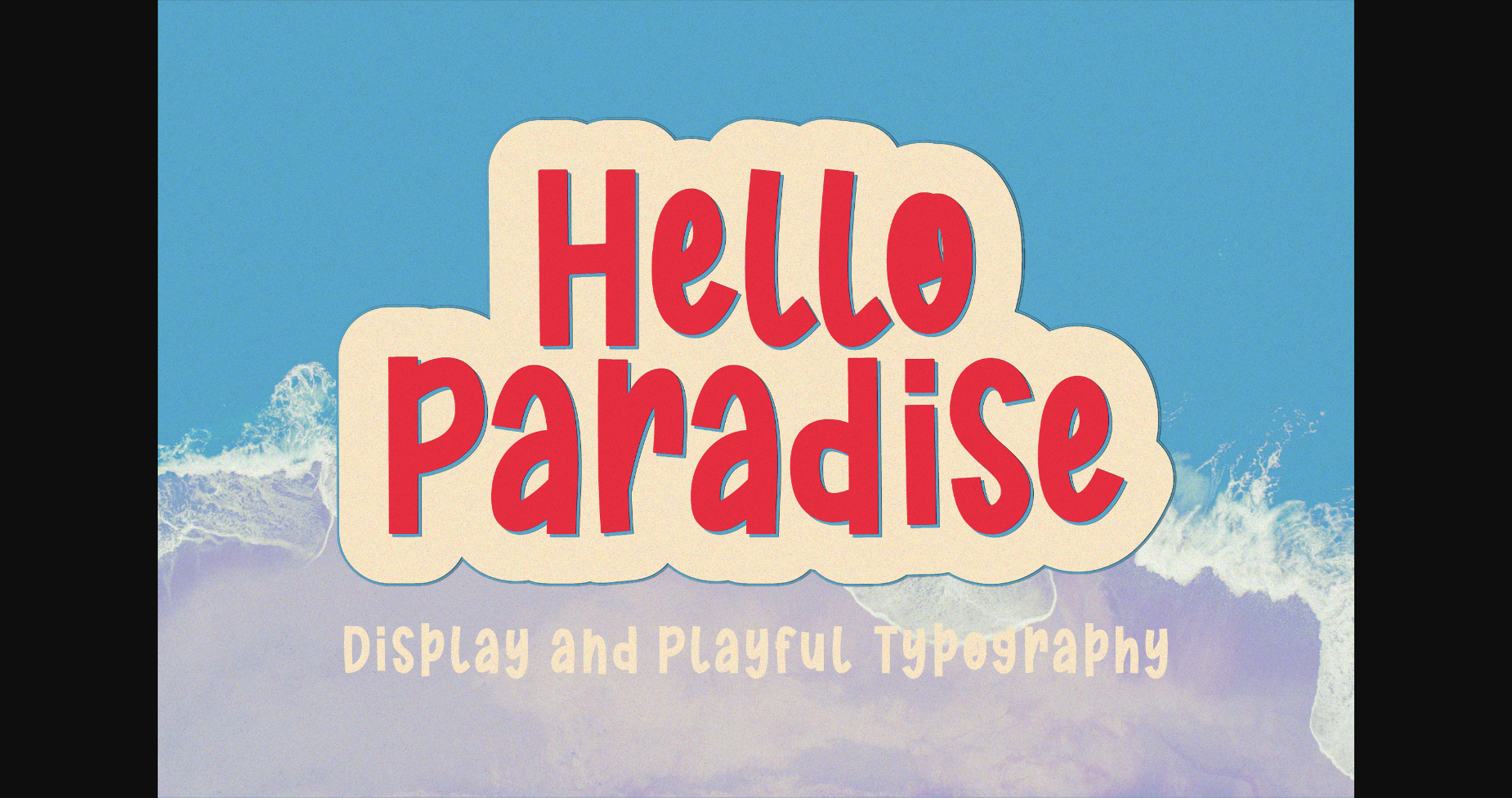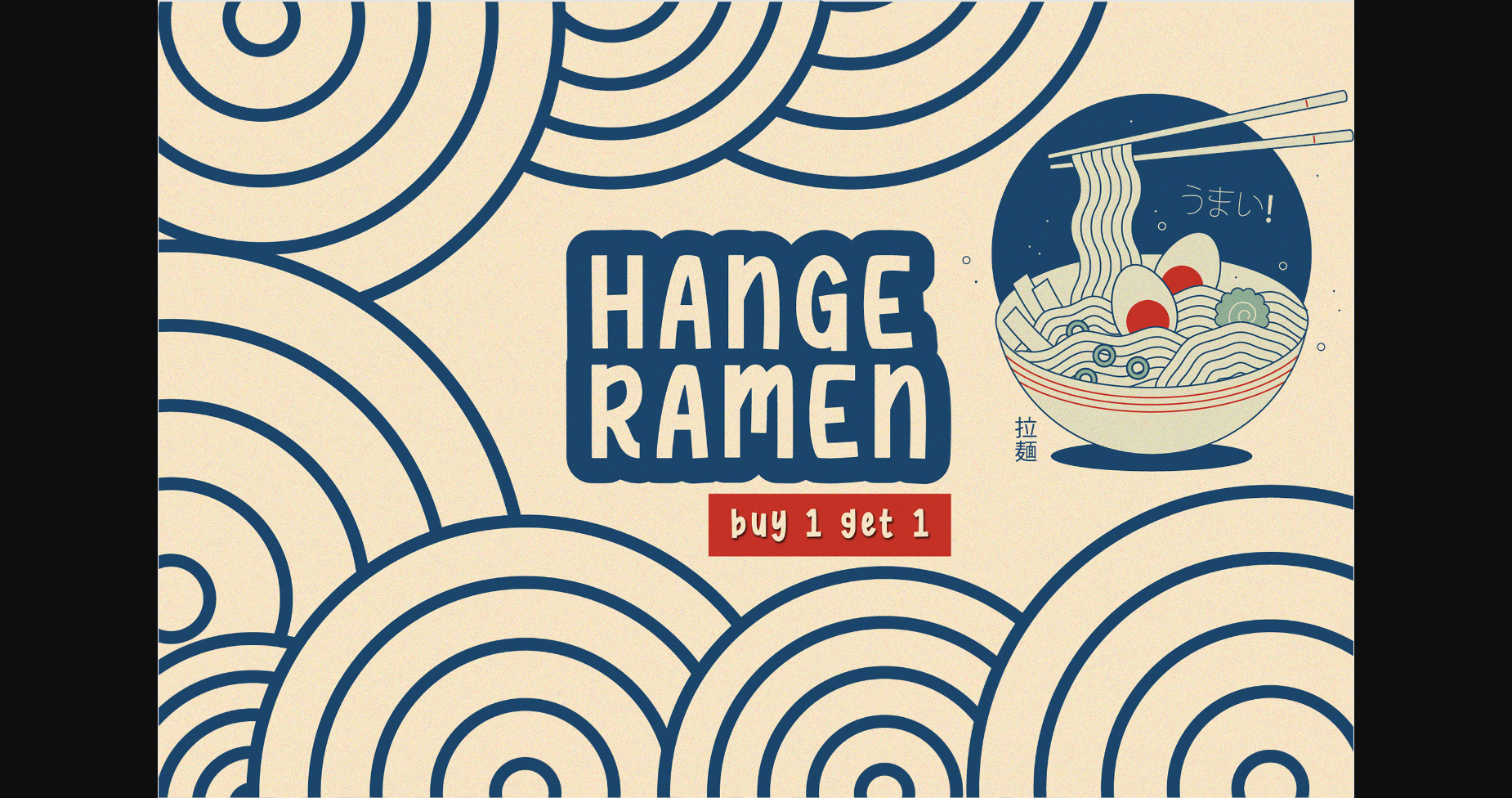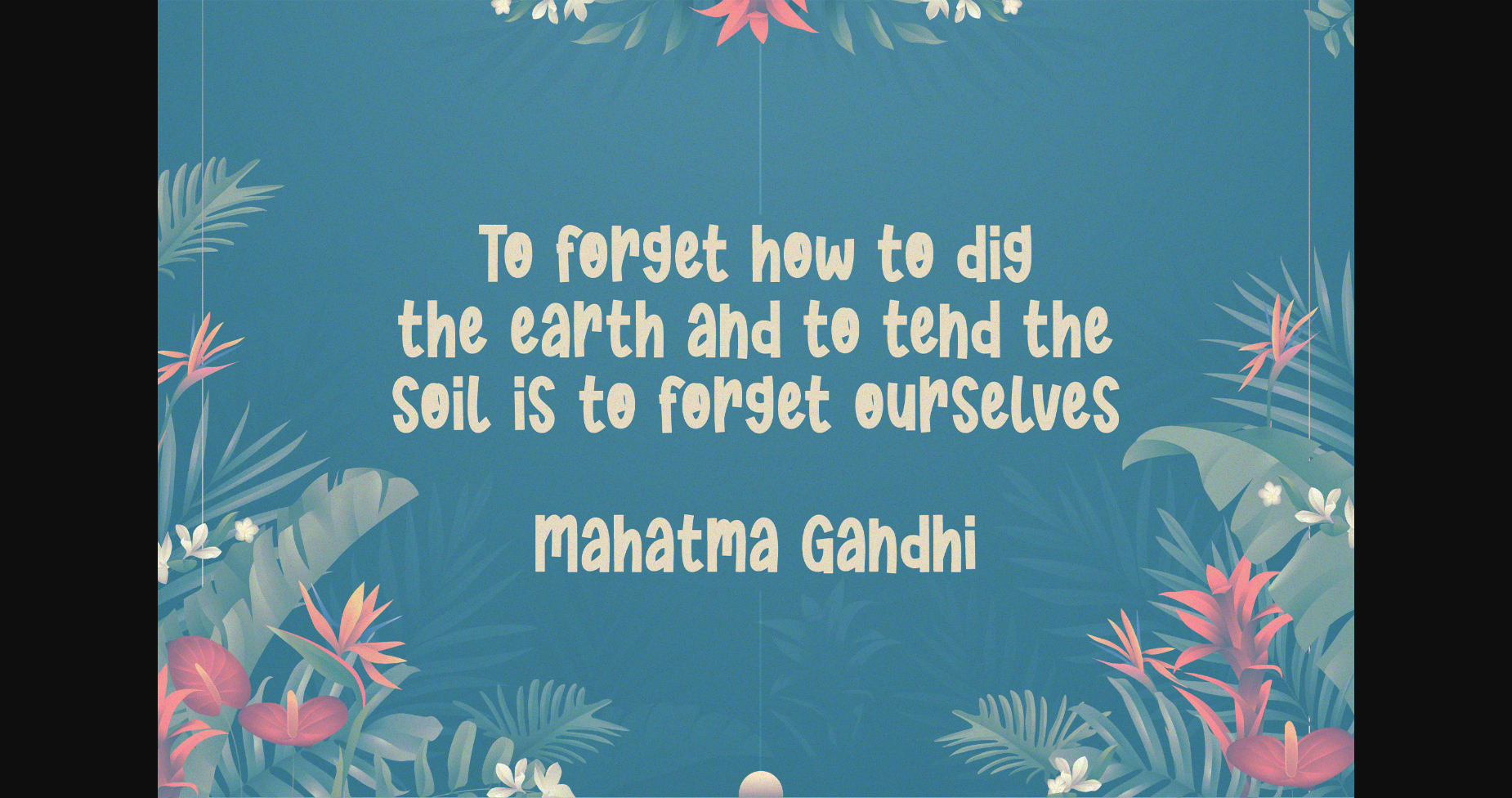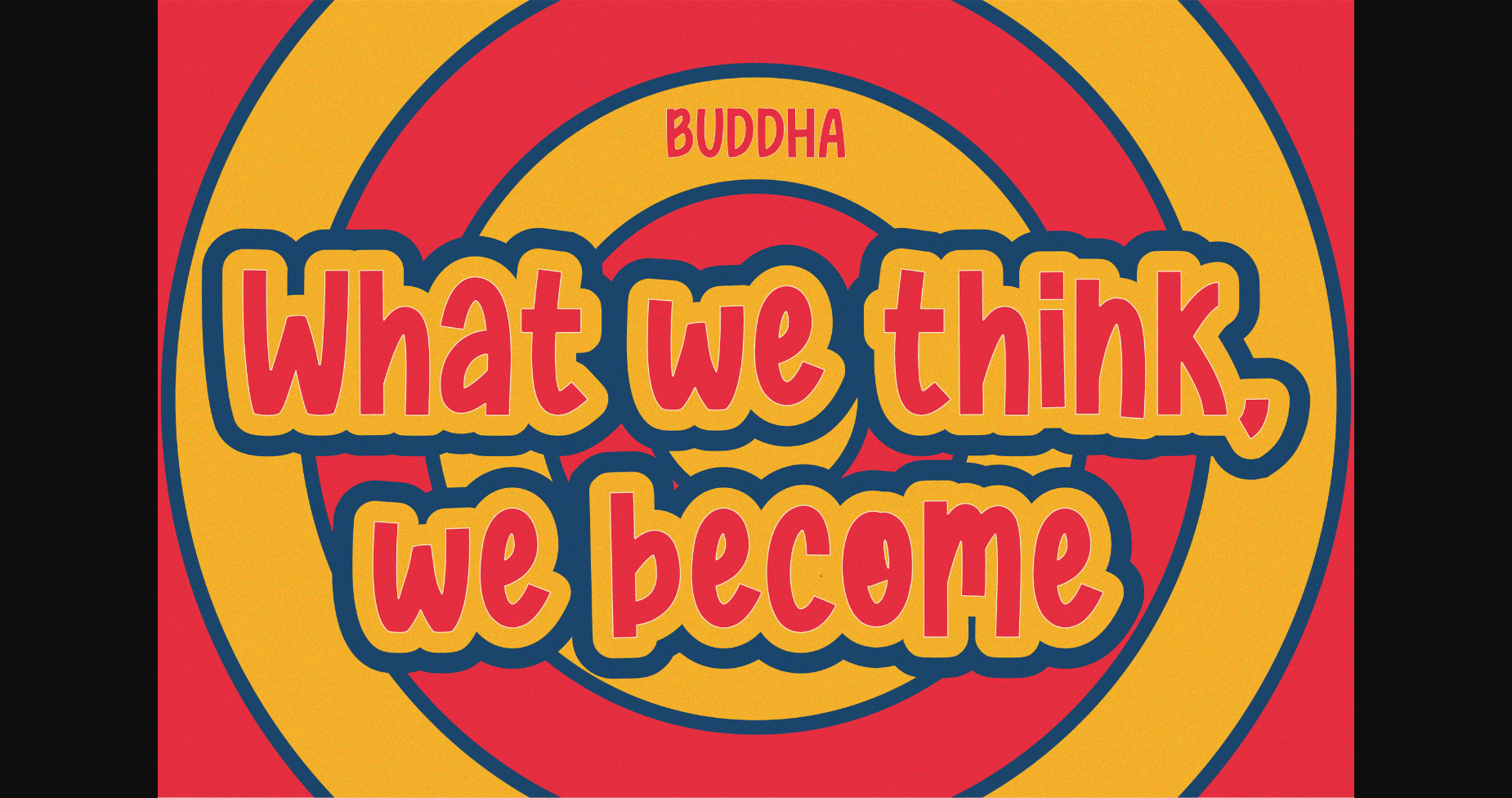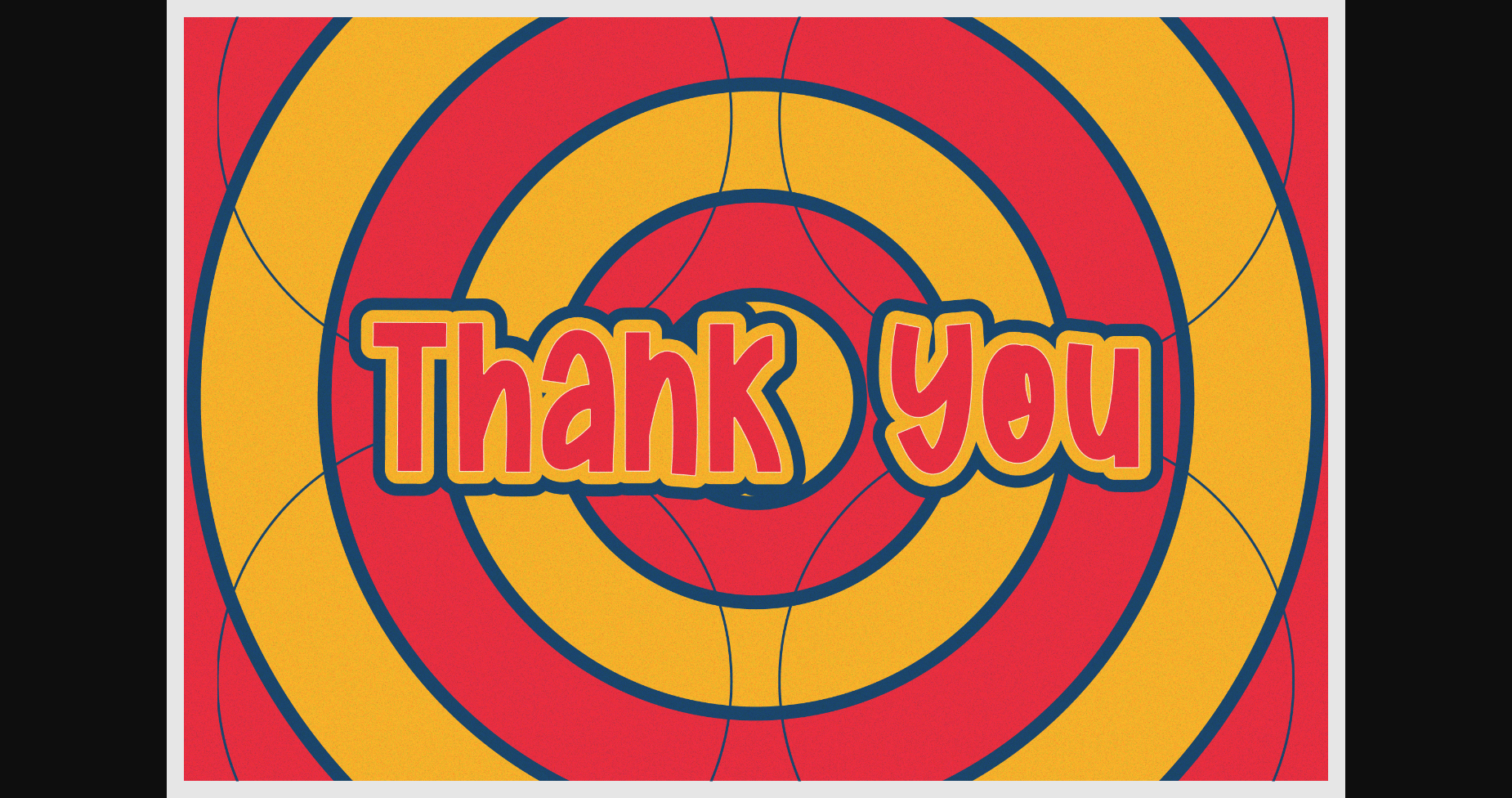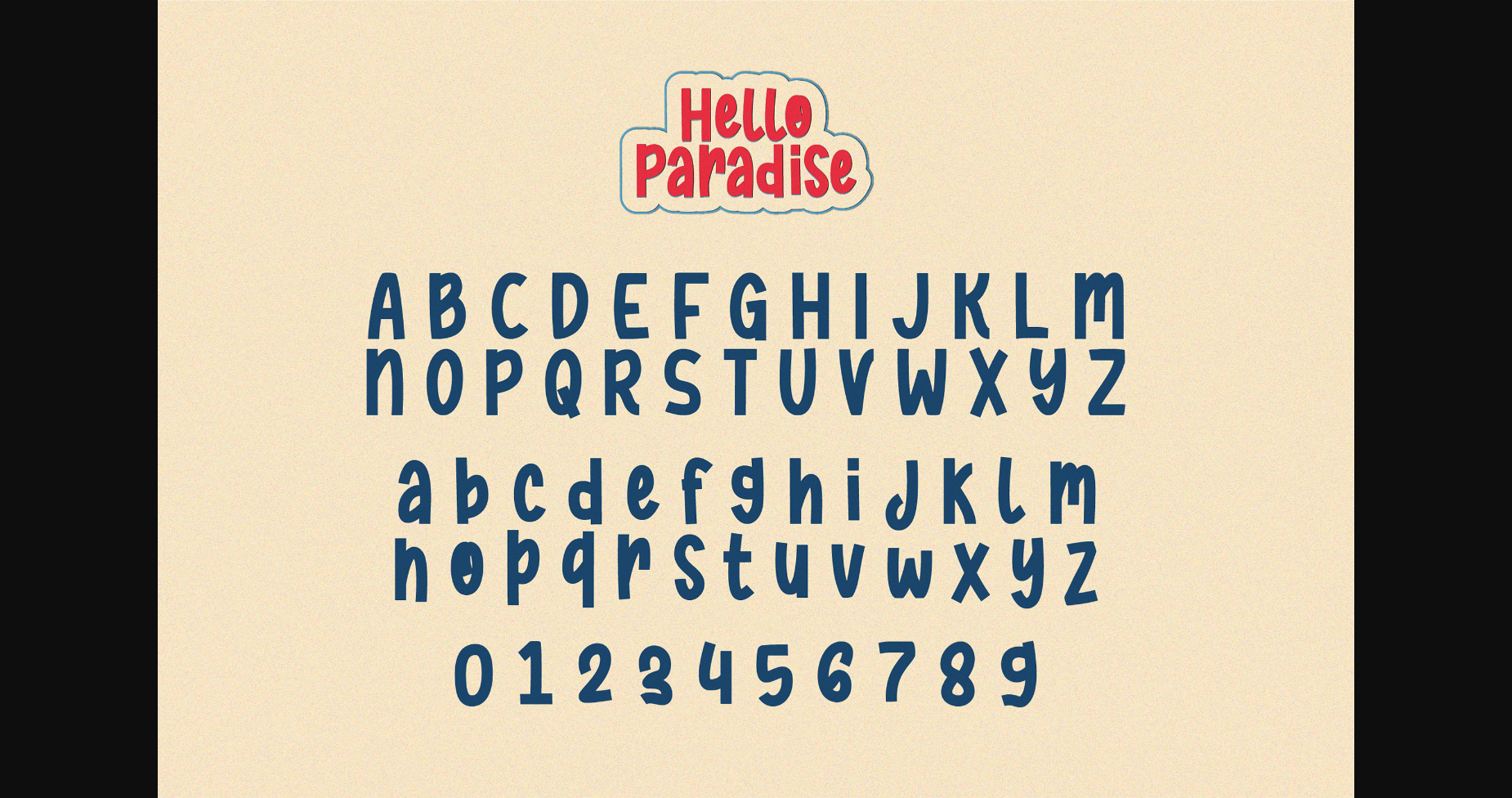
Hello Paradise Font
About Hello Paradise Font
Hello Paradise is a fun handwriting font that adds a retro style to give it a unique feel. Hello Paradise will foster a feeling of pleasure in the designs that you will create. Hello Paradise will be perfect for cover books, greeting cards, logos, posters, or anything that requires a fun and happy look!